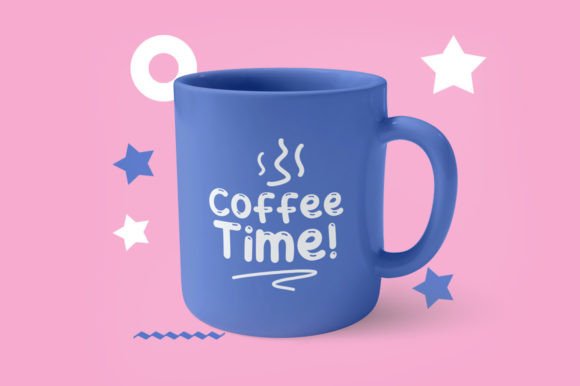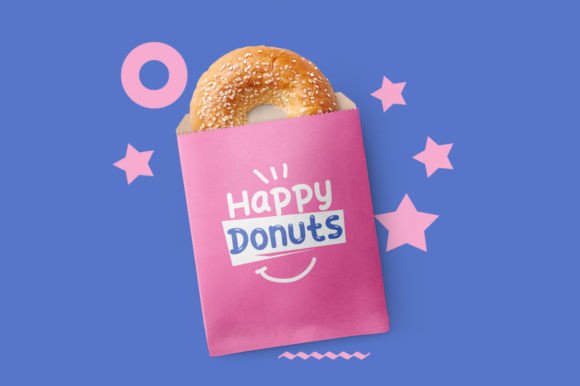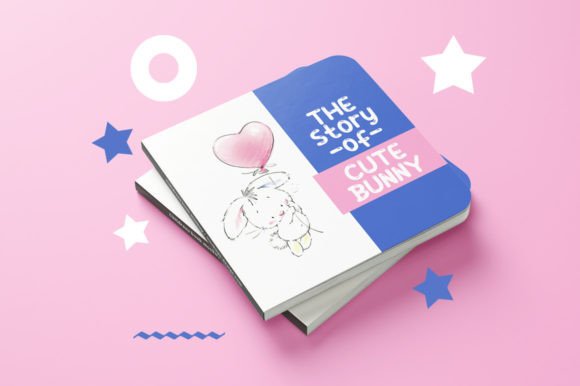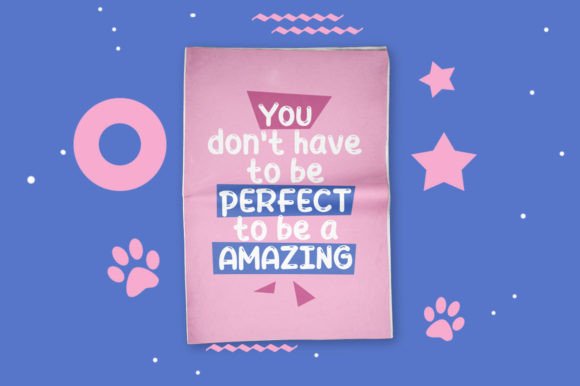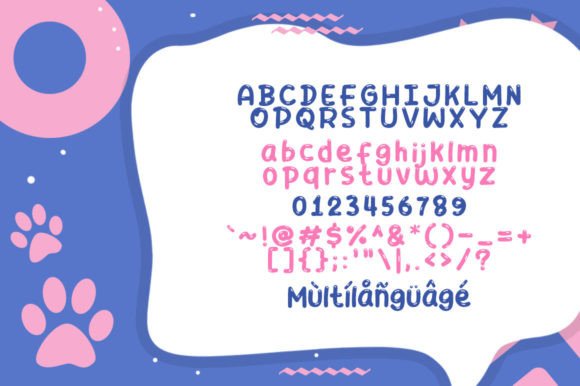
Playkiddo Font – Free Download
Introduction to Playkiddo Font
Playkiddo is a modern and fancy display font perfect for posters, logos, magazines, book covers, banners, and many more.
Get this amazing font, and use it to create lovely designs It can easily be matched to an incredibly large set of projects, so add it to your creative ideas and notice how it makes them stand out.
Key Features of Playkiddo Font
Playkiddo Font offers exceptional quality and versatility, making it a valuable addition to your design toolkit. Whether you’re creating for personal projects or commercial use, Playkiddo Font delivers professional results.